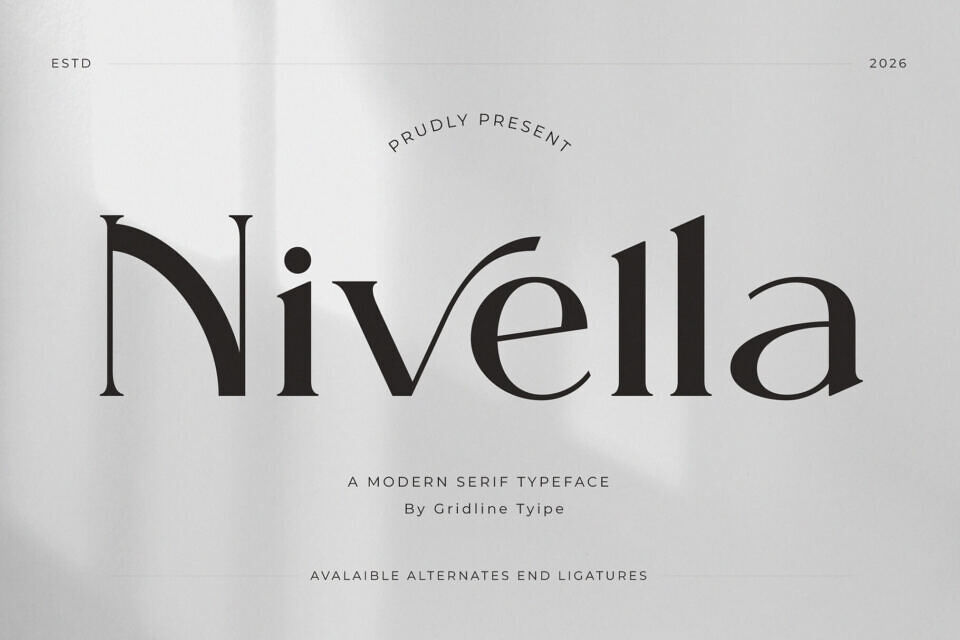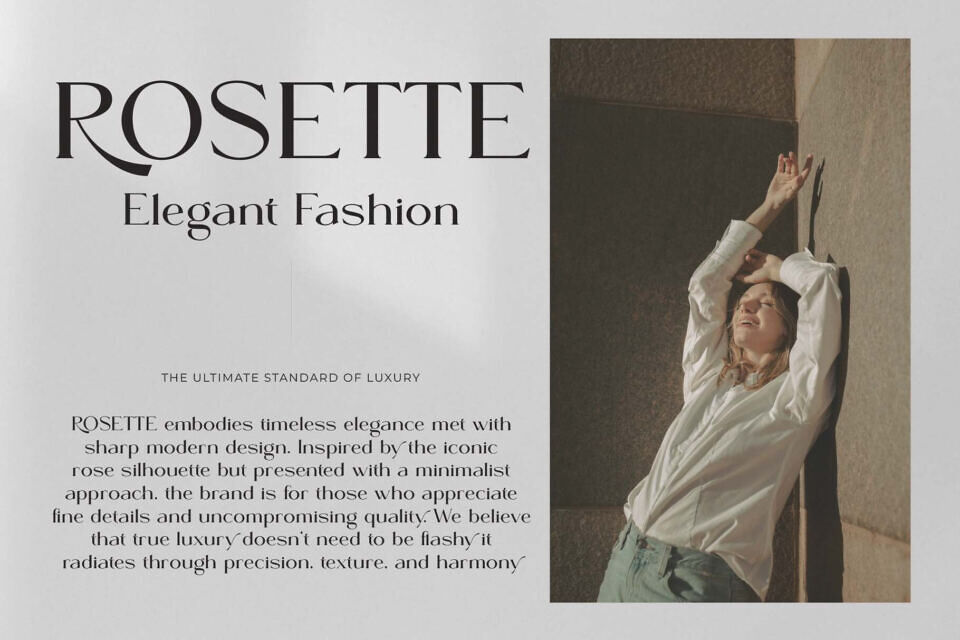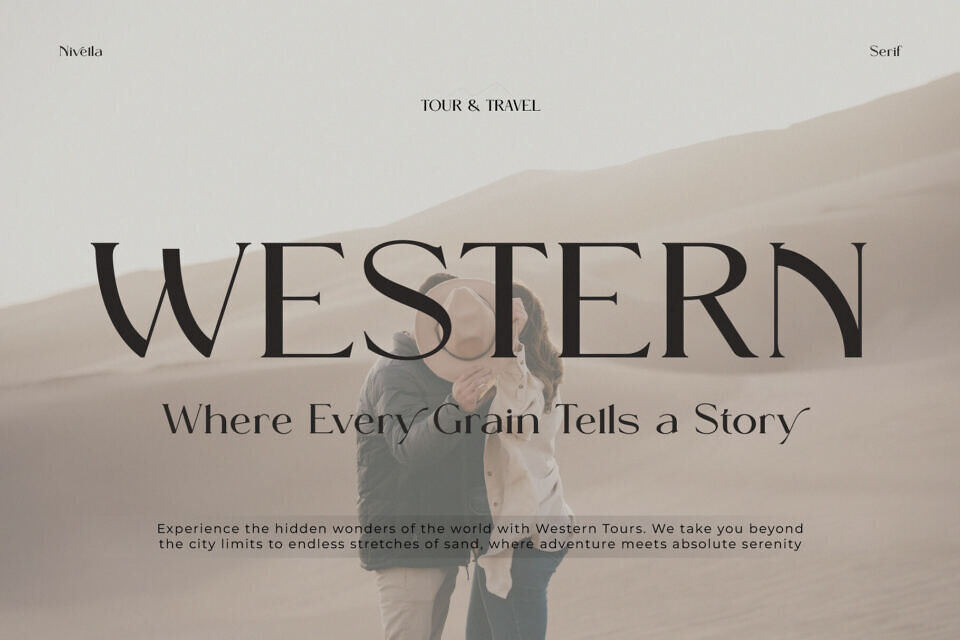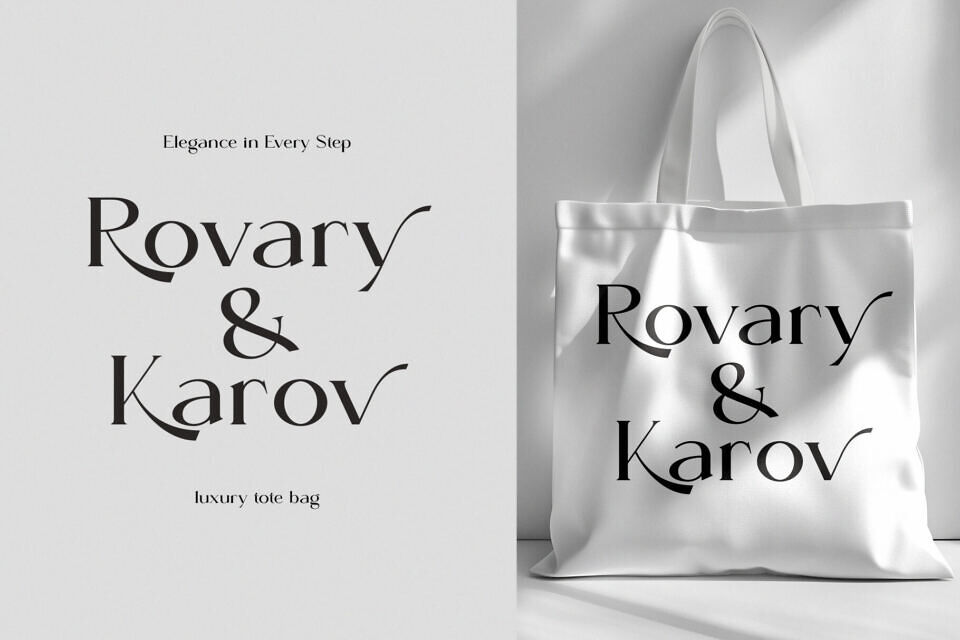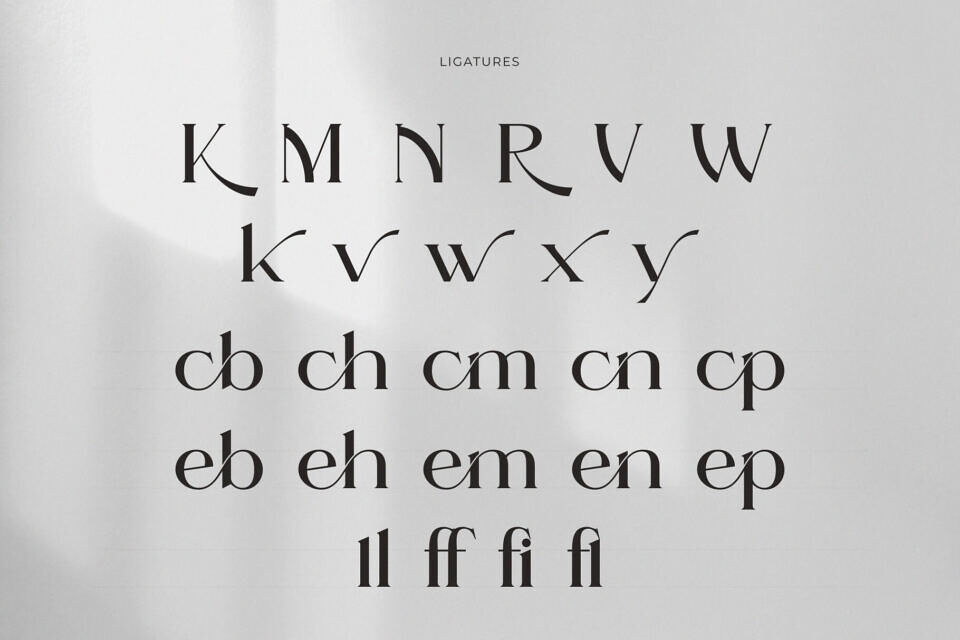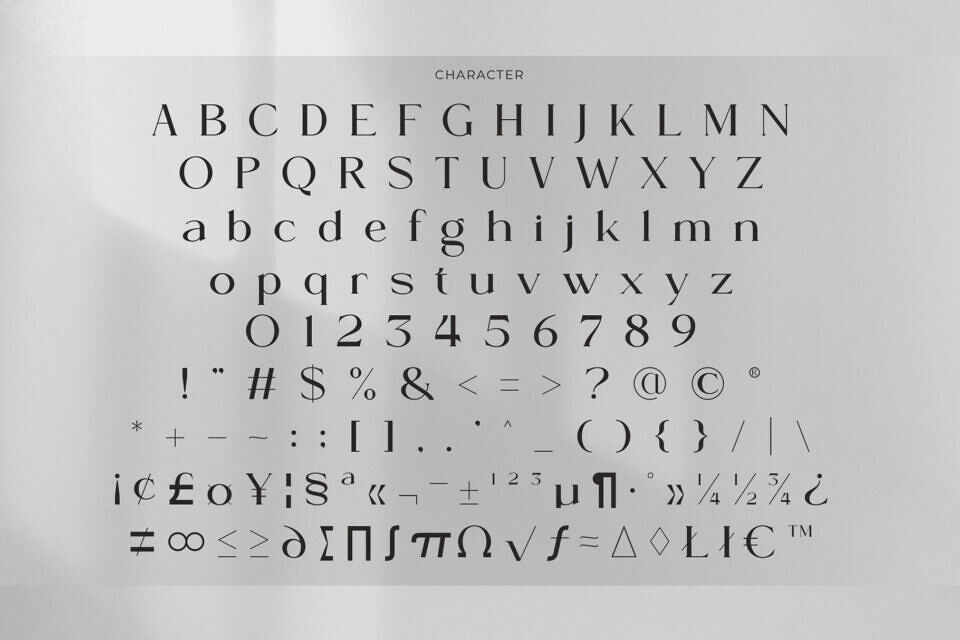
Define the essence of contemporary sophistication with Nivella, a modern serif typeface. This font strikes a perfect balance between traditional serif structure and modern minimalist flair. It features high-contrast strokes and clean, sharp terminals that radiate a polished, professional energy.
Nivella is an exceptional choice for corporate branding, luxury lifestyle magazines, high-end stationery, and modern web headers. It delivers a sense of refined clarity and legendary style to your visual identity, making it a cornerstone asset for any sophisticated design project.